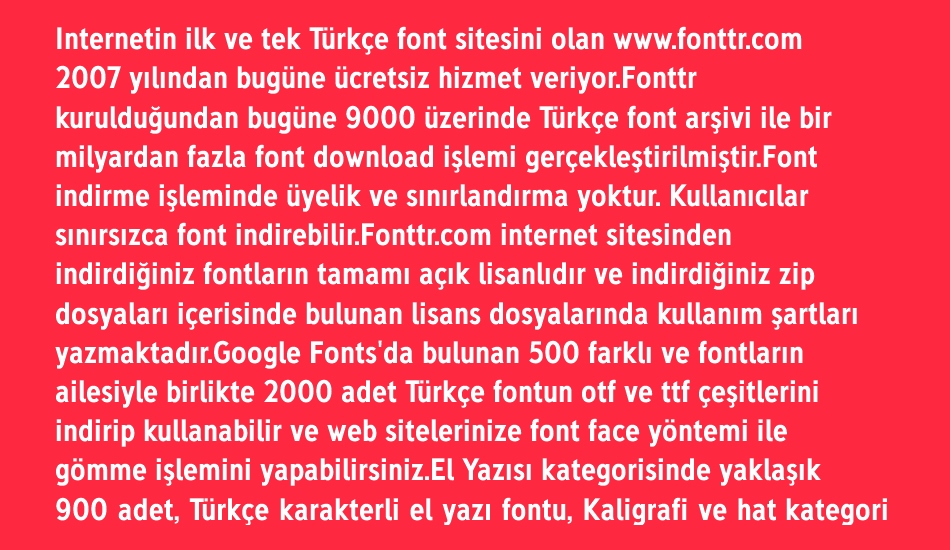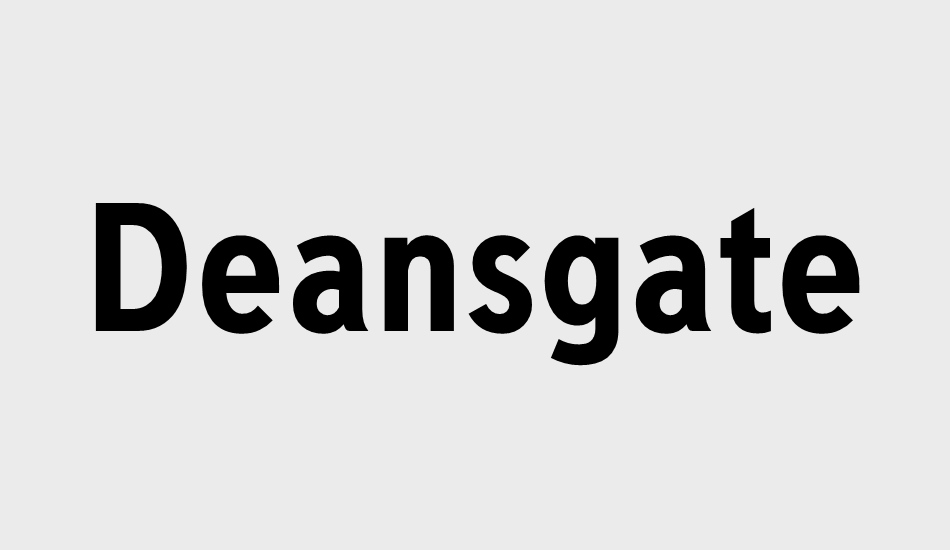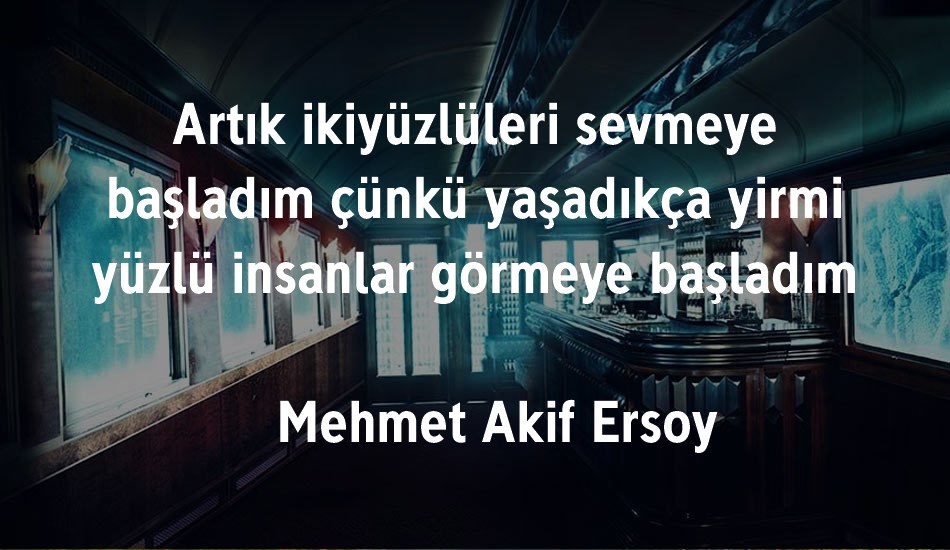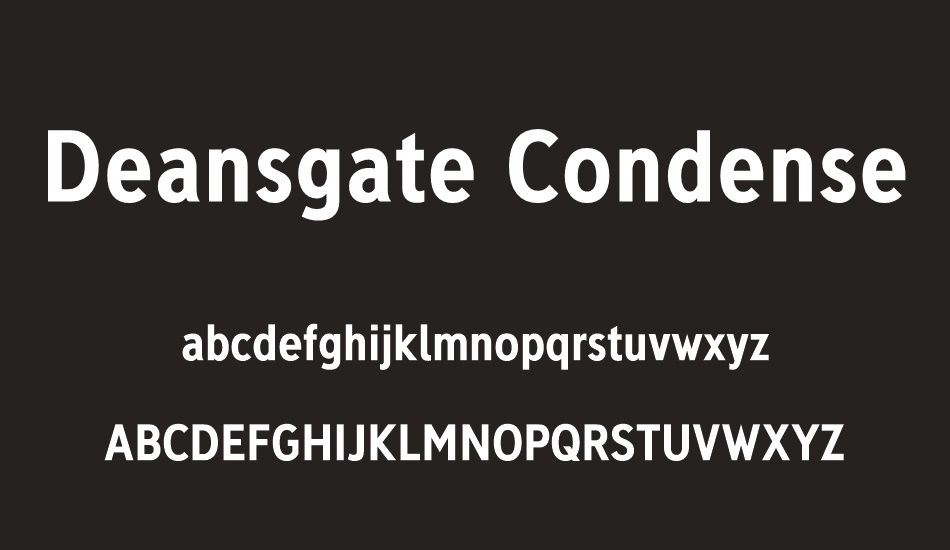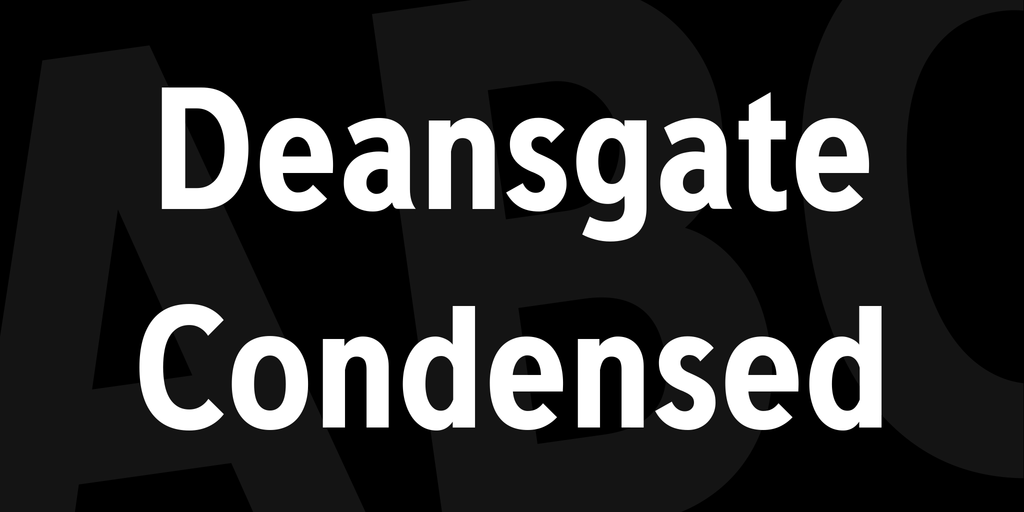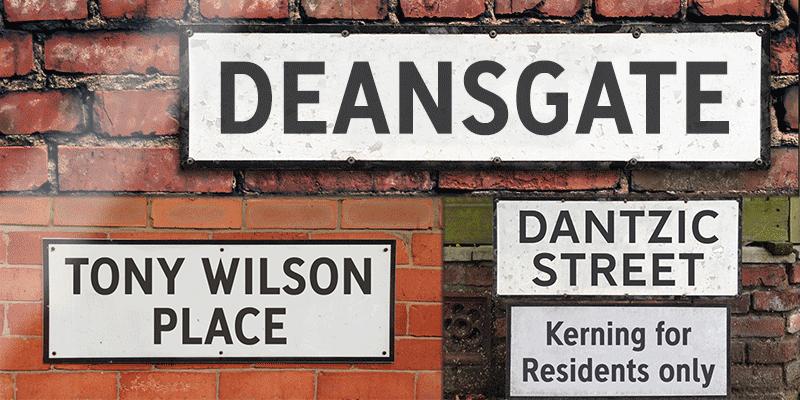
Deansgate and Deansgate Condensed are based on the clearest and most distinctive of the sans-serif letterforms used on Manchester street nameplates, and easily identified by a pointy Z and pointed vertex/apex on M and W.